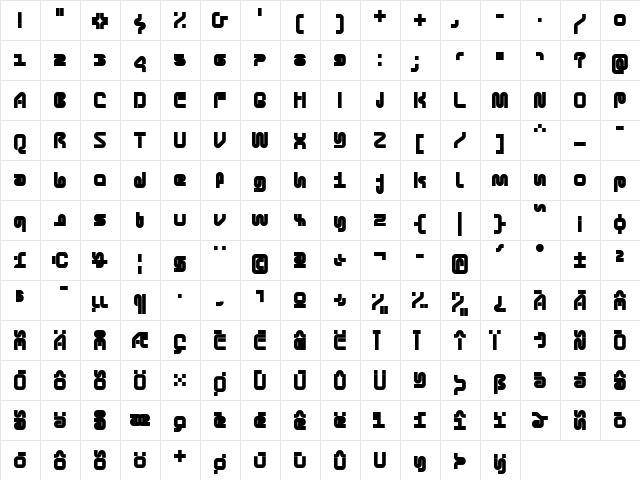
UltraTeen Regular
Design Context for UltraTeen Typeface
UltraTeen is a composed and adaptable typeface that performs quietly and consistently across a wide range of design contexts.